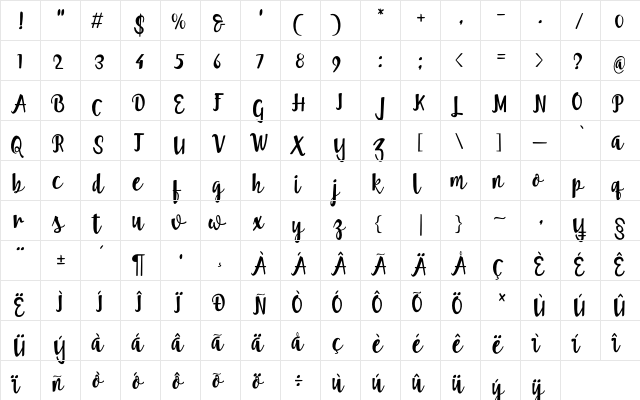
Umbrella Regular
Design Context for Umbrella Typeface
Umbrella is a composed and adaptable typeface that performs quietly and consistently across a wide range of design contexts.